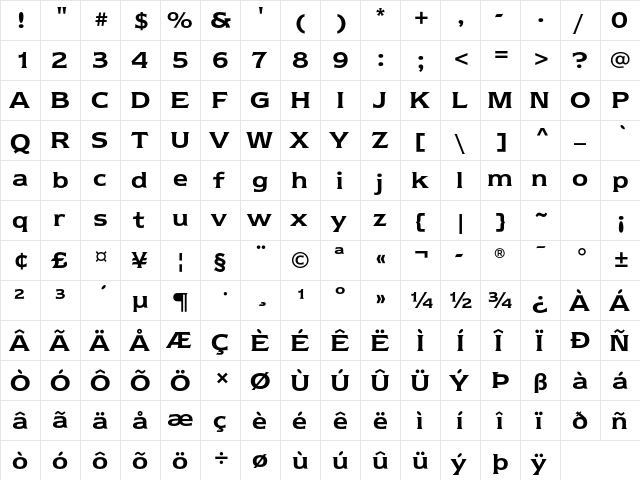
Newtext ITC Std Demi
Demi ·  Ray Baker ·
Design Context for Newtext ITC Std Typeface
Newtext ITC Std offers clean, dependable letterforms without strong stylistic allegiance, making it a practical choice for designers who need flexibility.